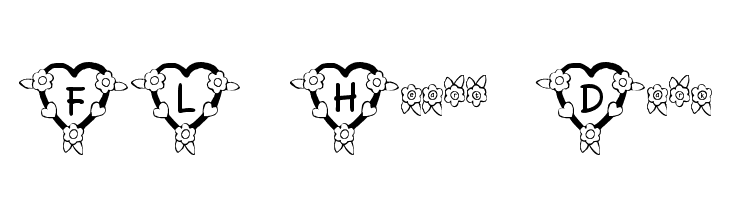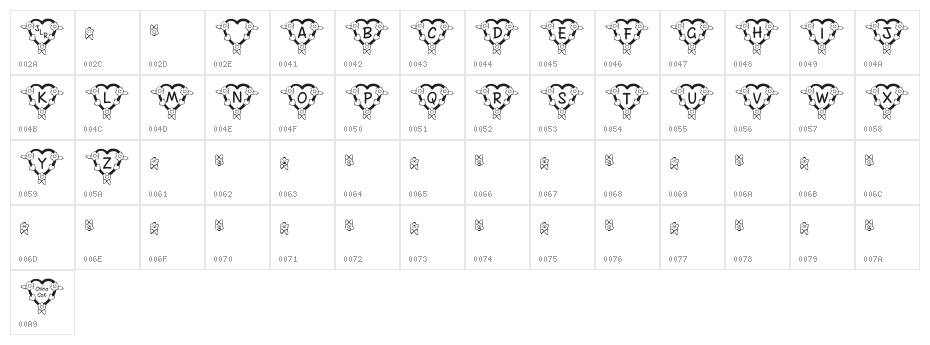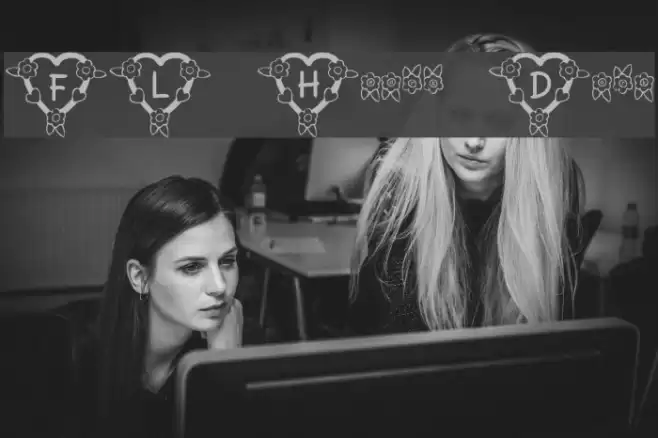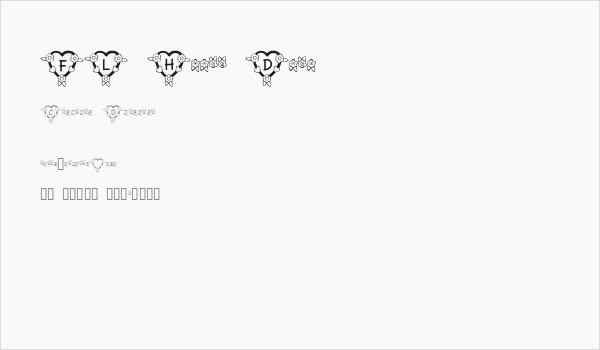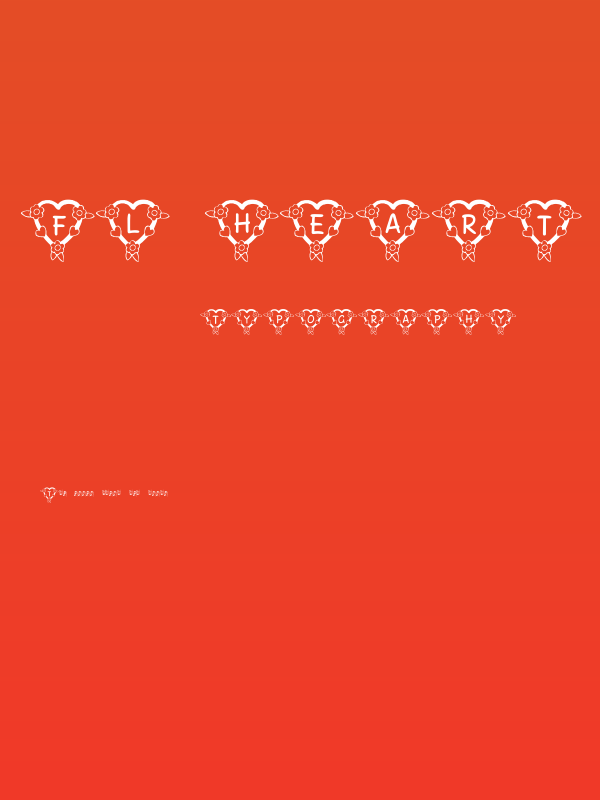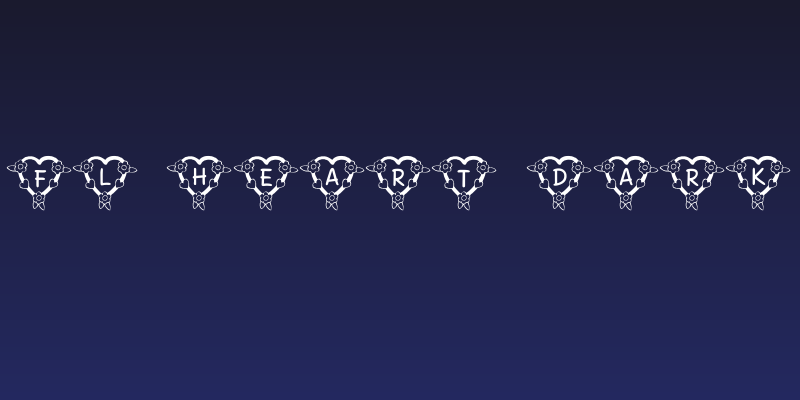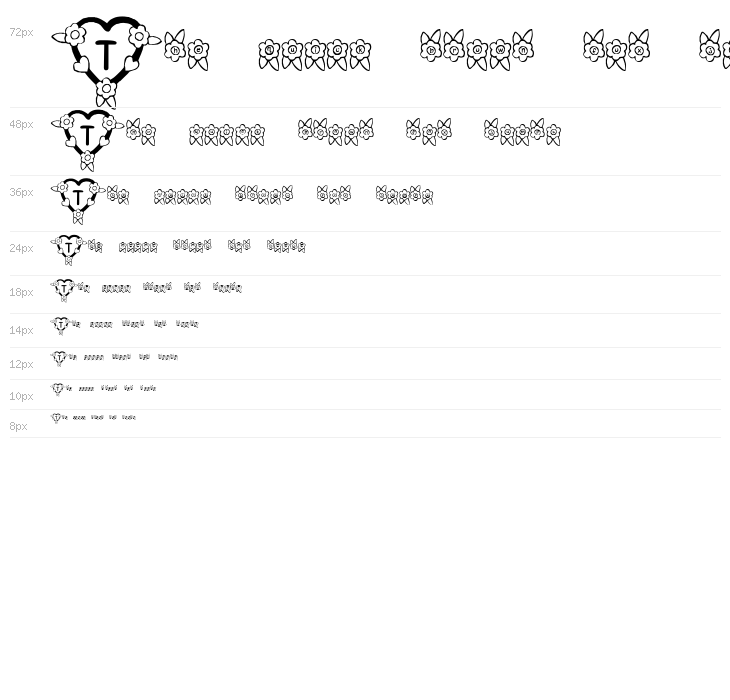
FL Heart Dark Font
FL Heart Dark Description
This decorative font features letters encased in heart-shaped designs, each adorned with floral elements. The uppercase letters are prominently displayed within the heart motifs, creating a whimsical and romantic appearance. The lowercase letters follow a similar style, maintaining consistency throughout the typeface. The numbers are presented in bold, rectangular frames, contrasting with the ornate letter designs. Special characters are also integrated into the heart and floral theme, adding a cohesive decorative touch. This font is ideal for projects that require a playful and charming aesthetic.
| Use Case | Logos, Invitations, Posters |
| Proposed Projects | Ideal for wedding invitations, romantic greeting cards, decorative posters, and themed event materials. |